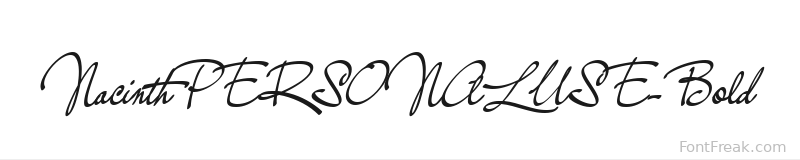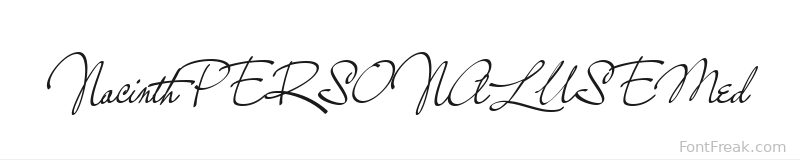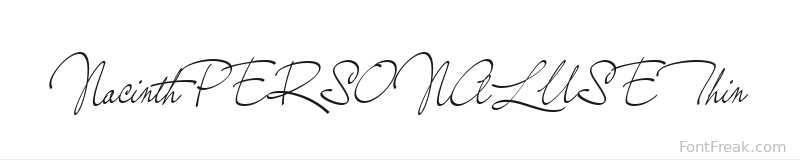
NacinthPERSONALUSEMed
About NacinthPERSONALUSEMed
NacinthPERSONALUSEMed is a beautifully crafted script font designed by Mans Greback. This font falls into the decorative category, showcasing elegant curves and graceful flourishes that create a sophisticated and inviting aesthetic. With its medium stroke weight, NacinthPERSONALUSEMed strikes a balance between legibility and artistic flair, making it a versatile choice for various design projects.
Visually, the font features a smooth, flowing script style that is both modern and timeless. The contrasting strokes add depth and interest, while the generous spacing between letters enhances readability. Decorative elements, such as the swirls and loops at the ends of certain characters, contribute to its unique charm, making it perfect for designs that require a touch of elegance and creativity.
This font is ideal for a variety of use cases, including wedding invitations that need a romantic touch, stylish restaurant menus that convey a sense of sophistication, and eye-catching movie posters that demand attention. Additionally, it works well for branding projects aiming to establish a memorable identity, as well as social media graphics that require an inviting and personal feel.
In conclusion, NacinthPERSONALUSEMed font free download offers a remarkable combination of elegance and versatility. Its unique design elements and readability make it a standout choice for creative professionals looking to add a touch of sophistication to their work. Whether for personal or commercial projects, this font is sure to leave a lasting impression.